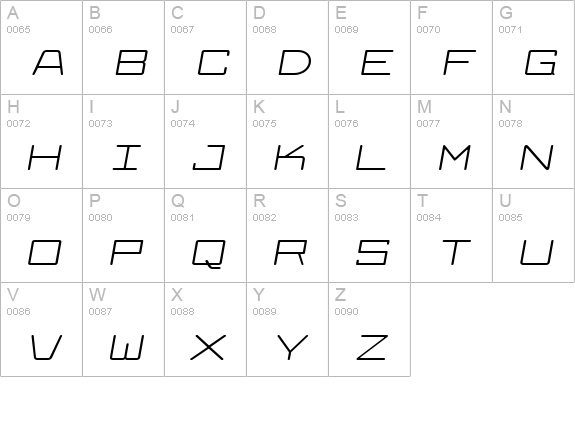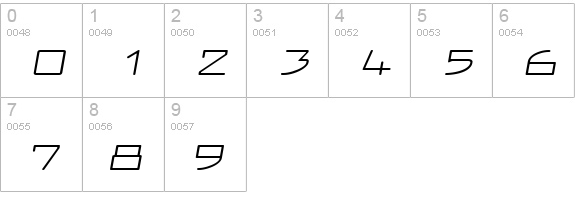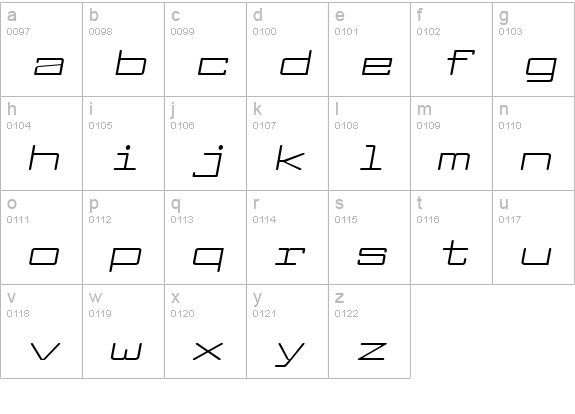
Larabiefont Xtrawide Italic Font Details
Larabiefont Xtrawide Italic is a distinctive, italic variant in the Larabiefont typeface family \xE2\x80\x94 well suited to design and typography projects.
Larabiefont Xtrawide Italic is a bold and eye-catching font that exudes modernity and sophistication. Its unique and striking design features extra wide letterforms with a slanted italic style, making it perfect for adding a touch of flair to your projects. This font is ideal for headlines, branding, posters, and any design that requires a strong visual impact. The best part about Larabiefont Xtrawide Italic is that it is completely free to download. You can easily get your hands on this stunning font at FontsMarket.com, where you can access a wide range of high-quality fonts for all your design needs. Don't miss out on this fantastic opportunity to enhance your creative projects with the bold and dynamic Larabiefont Xtrawide Italic font.